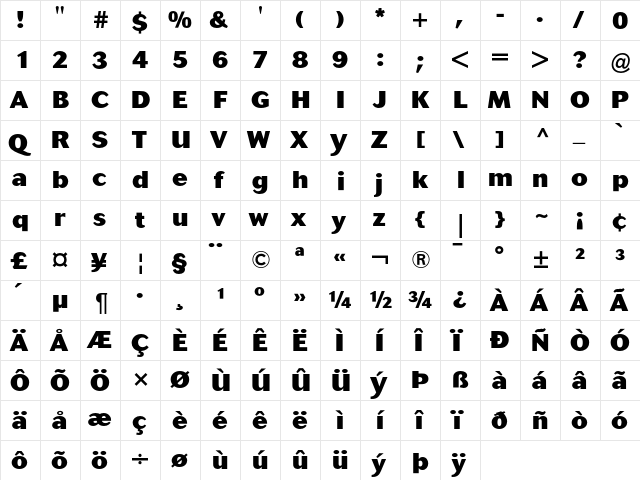
Cosmos Extra Bold
Design Context for Cosmos Typeface
Cosmos is a composed and adaptable typeface that performs quietly and consistently across a wide range of design contexts. The heavy weight commands attention and anchors typographic hierarchies.
Pro Tip: Pair Cosmos with a font of contrasting weight or personality to build a more expressive typographic hierarchy.